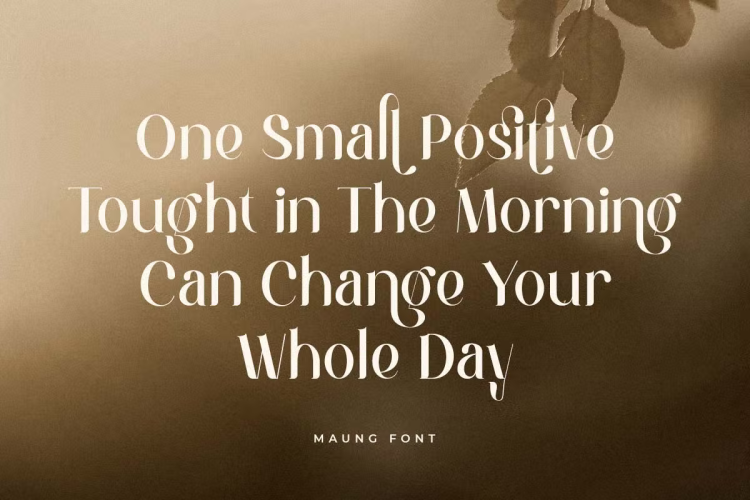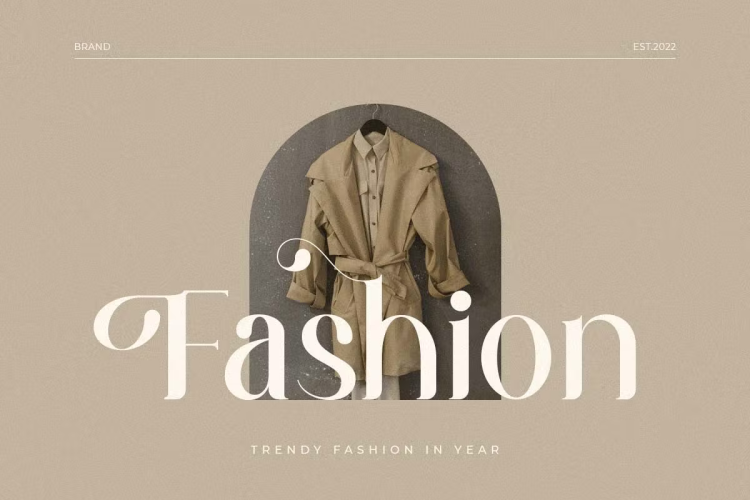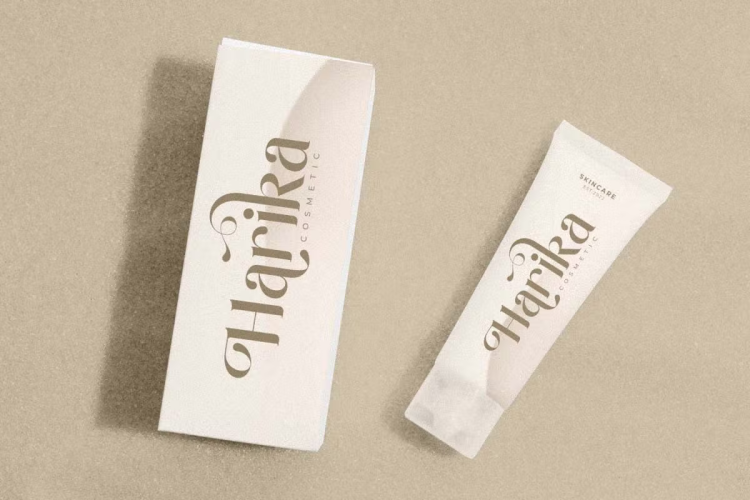
Maung Font
Maung Font that we created especially for elegant branding needs, with extra ligature and alternates in unique shape will be ready to add the value of your brand. It is so nice to leverage designers or product owners that need solutions to make their design look more classy and modern. We prepared any ligatures, and any alternate characters to help you create unlimited variations for your creative needs.
Where Maung Font works best
Headlines and titles
Maung Font has enough character to carry a headline on its own; set it large and keep the supporting text plain.
Brand and product names
Short strings are where this typeface is strongest — a name, a label, a cover line.
Social and video graphics
Set Maung Font over a flat colour or a quiet photograph so the letterforms stay the focus.
What kind of work does Maung Font suit?
It sits in the Modern Serif Font group and reads as branding, creative, elegant, modern. That makes it a candidate wherever those qualities help: headings, packaging, social graphics and brand work. Set it at the size you plan to use before deciding.